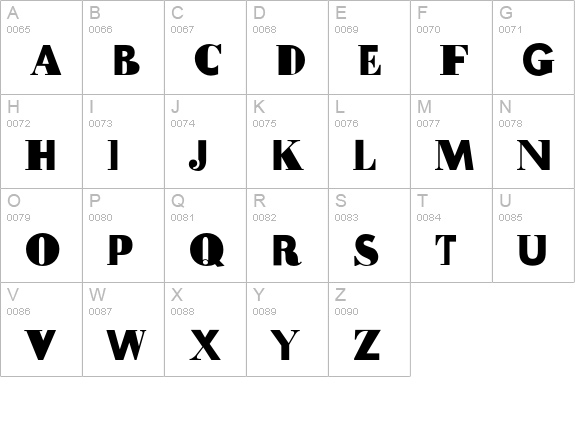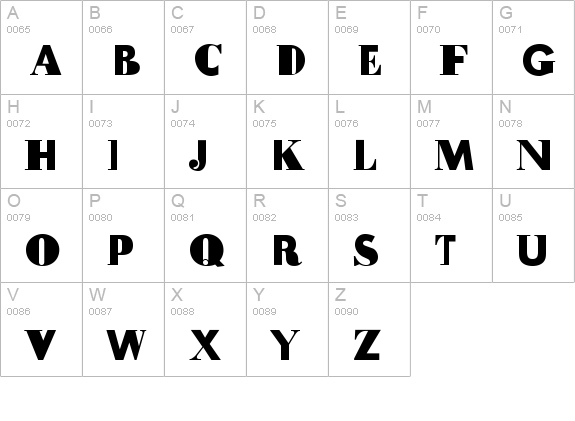
FudoniThree Font Details
FudoniThree font is a stunning display typeface that exudes elegance and sophistication. With its sharp, intricate details and classic design elements, this font is perfect for adding a touch of luxury to your projects. The FudoniThree font features a unique blend of modern and traditional styles, making it versatile for a wide range of design applications. What sets FudoniThree font apart is not only its exquisite design, but also the fact that it is available for free download at FontsMarket.com. This means you can easily access this premium font without any cost, allowing you to elevate your designs without breaking the bank. Whether you're working on branding, packaging, invitations, or any other creative project, FudoniThree font is sure to make a statement and leave a lasting impression. Don't miss out on the opportunity to enhance your designs with the luxurious FudoniThree font. Download it for free today at FontsMarket.com and take your projects to the next level with this exquisite typeface.